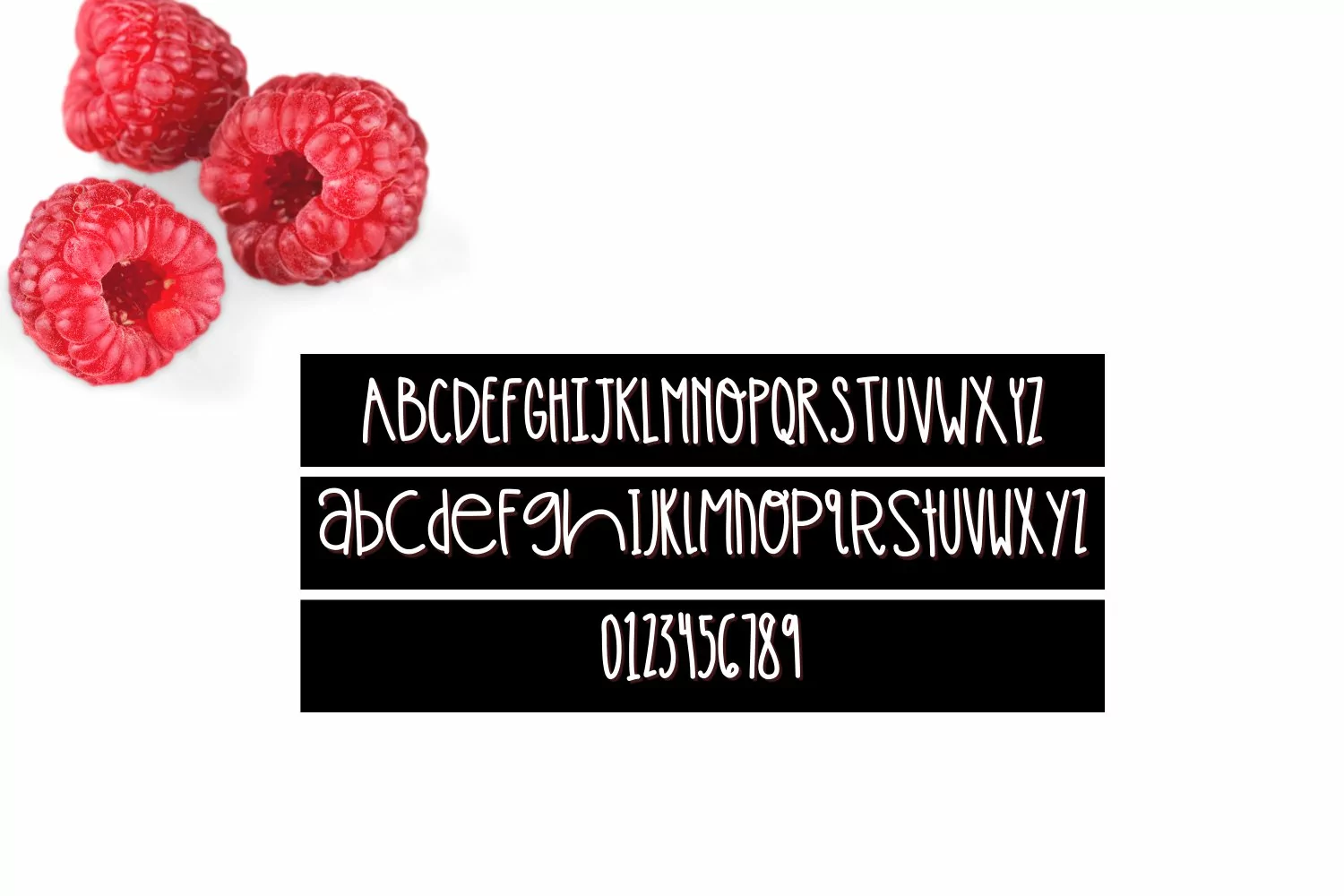
Raspberry Froyo is a quirky, irregular mixed case font that is perfect for fun youthful design projects! It is bursting with handwritten charm and personality!